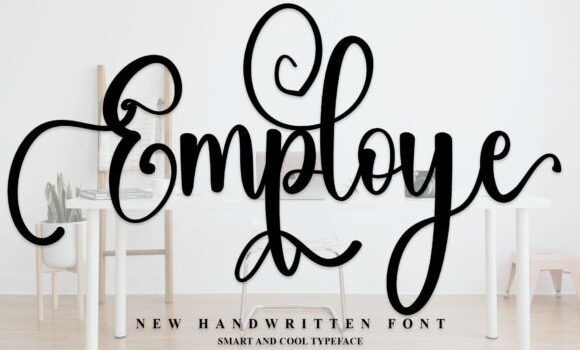
employe
Employe Font – Free Download Introduction to Employe Font Employe is a cute handwritten font with a fun and quirky personality. 📸 Preview Gallery 4 images 📌 Product Name Employe Font 👤 Author Inermedia STUDIO 📂 Category Explore ⬇️ Download